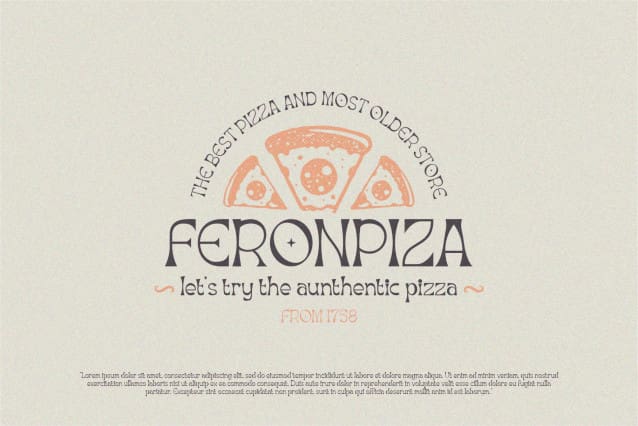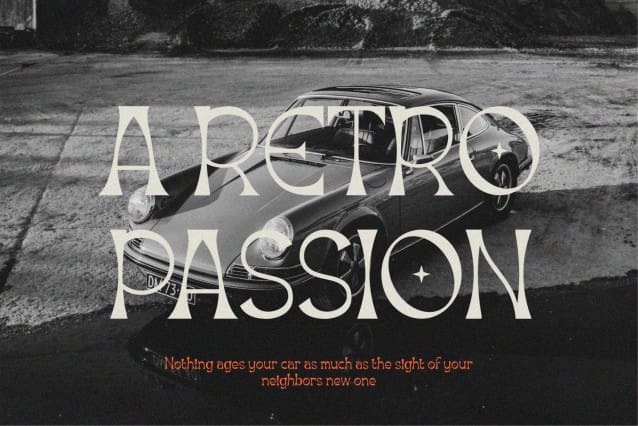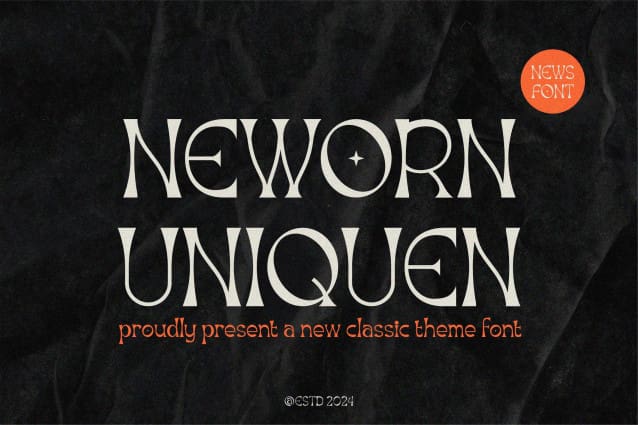
Neworn Uniquen Font
Neworn Uniquen a New Classic Font. Very suitable to be combined with invitation card designs, company logos, film titles, film names, business cards, book titles, brand names and various other designs. Its stylish alternation and binding make this font the perfect partner for any project.
Designer Name: SlideShoot